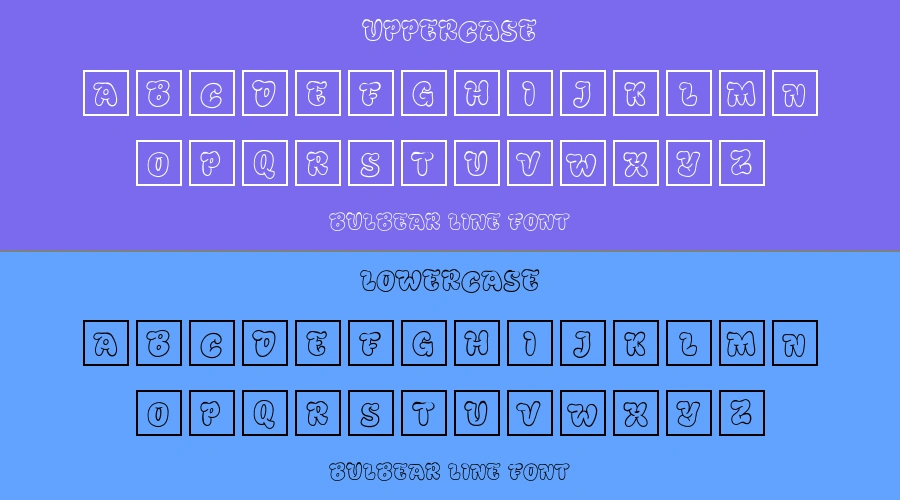
About Bulbear Line Font
Bulbear Line Font represents a sophisticated approach to type design, balancing brush influence with professional finish. Perfect for corporate identity, this font family showcases impressive accuracy and artistic value throughout its character set. Designers appreciate its versatility and reliability.
Designers will appreciate nuanced touches including geometric precision and traditional figures, adding sophistication to any project. These features become apparent in book chapters, where compatibility matters most. The careful treatment of spur details and historical context ensures optimal performance.